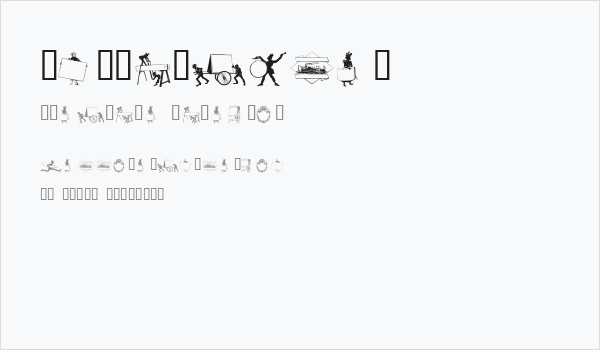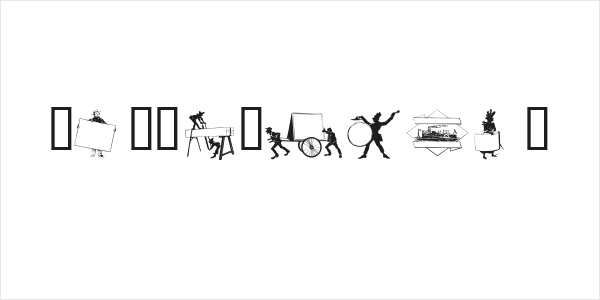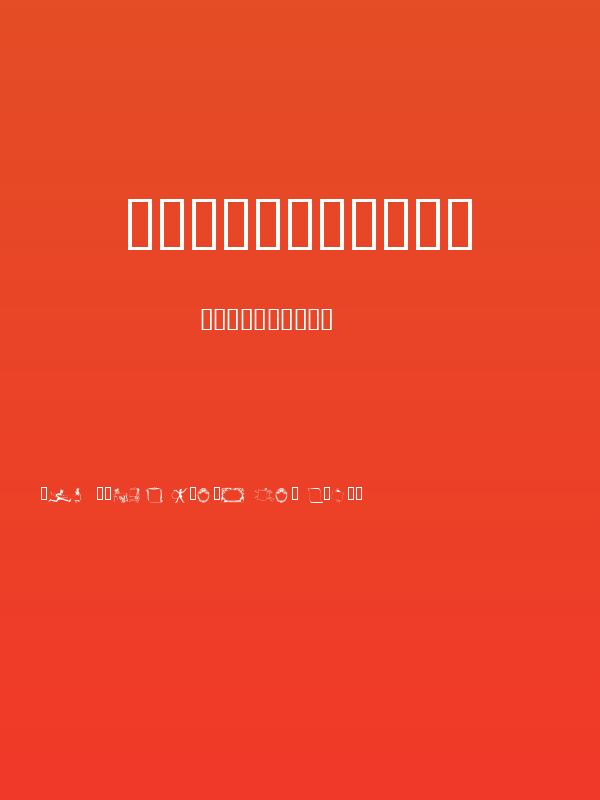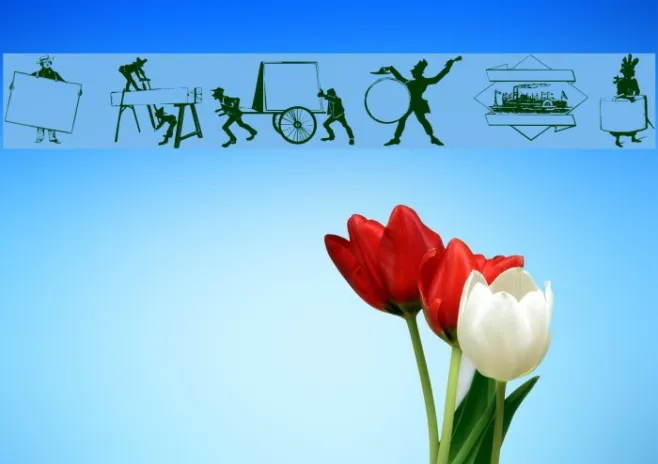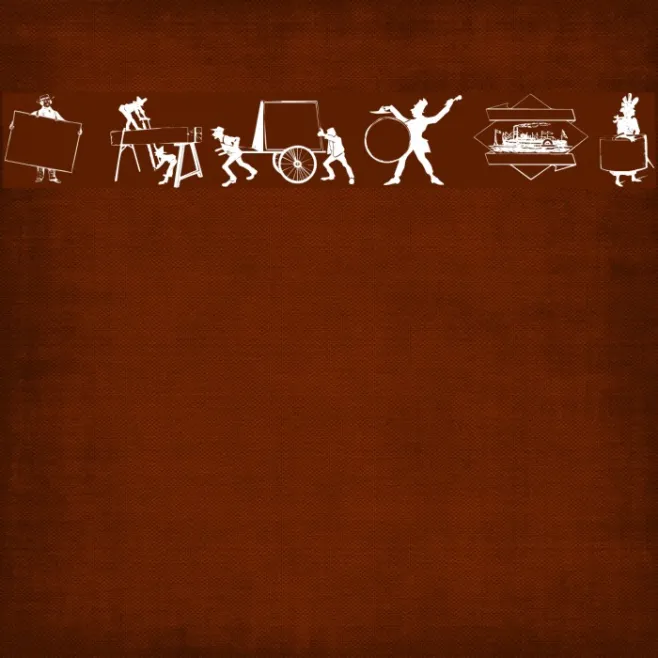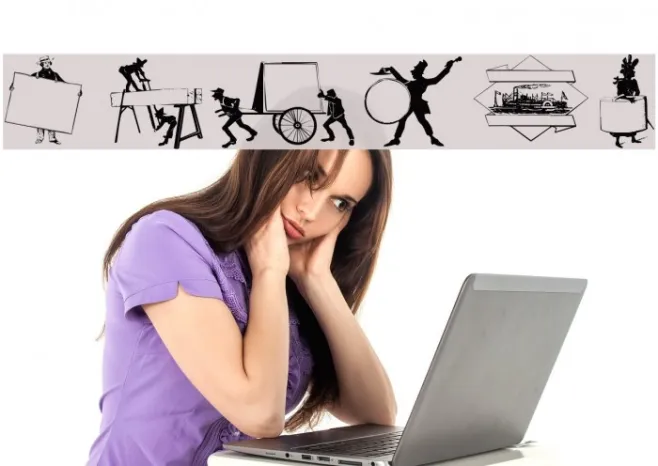
wmwritables Font
wmwritables Description
Decorative font featuring whimsical illustrations with blank spaces for writing.
| Overall Style | Playful and whimsical |
| Use Case | Decorative elements, creative projects. |
| Proposed Projects | Invitations, greeting cards, creative projects. |